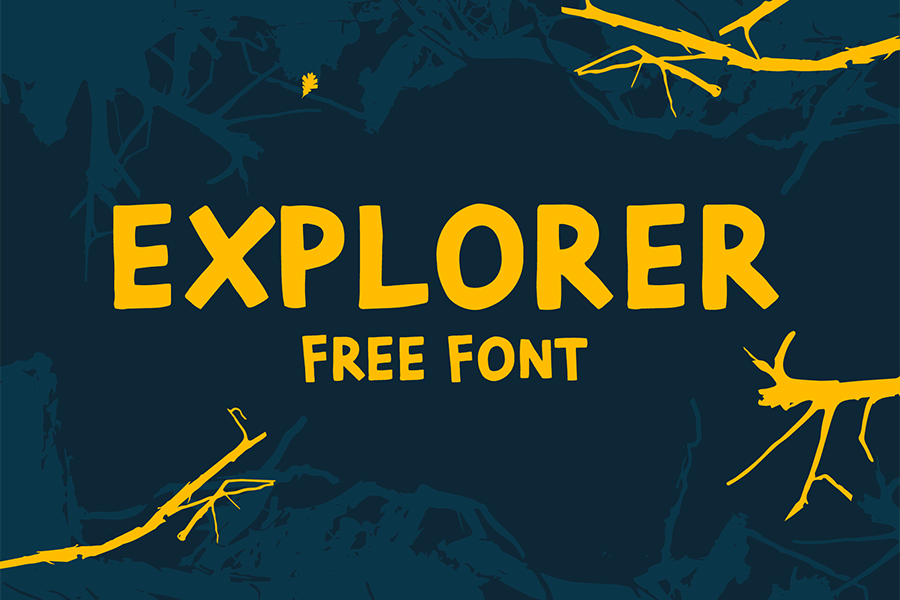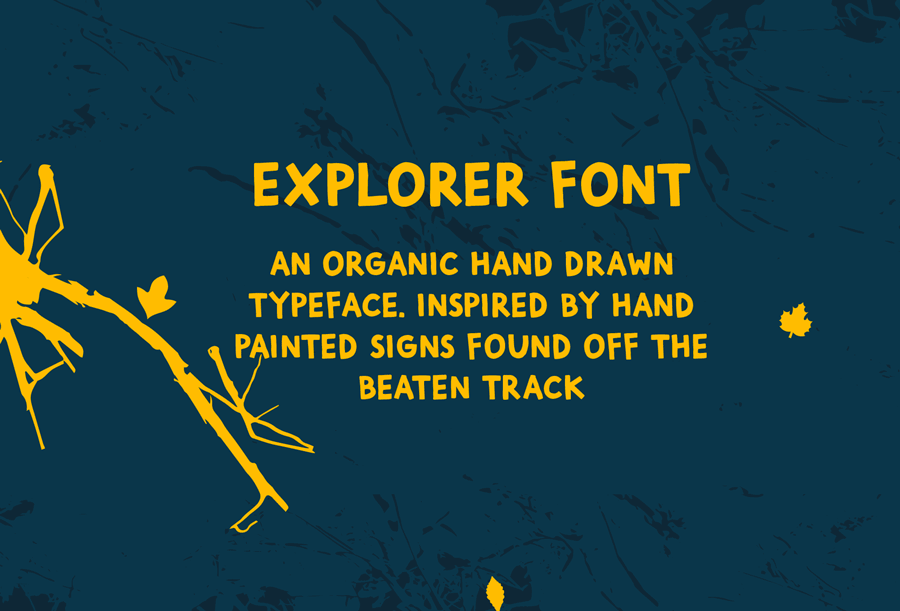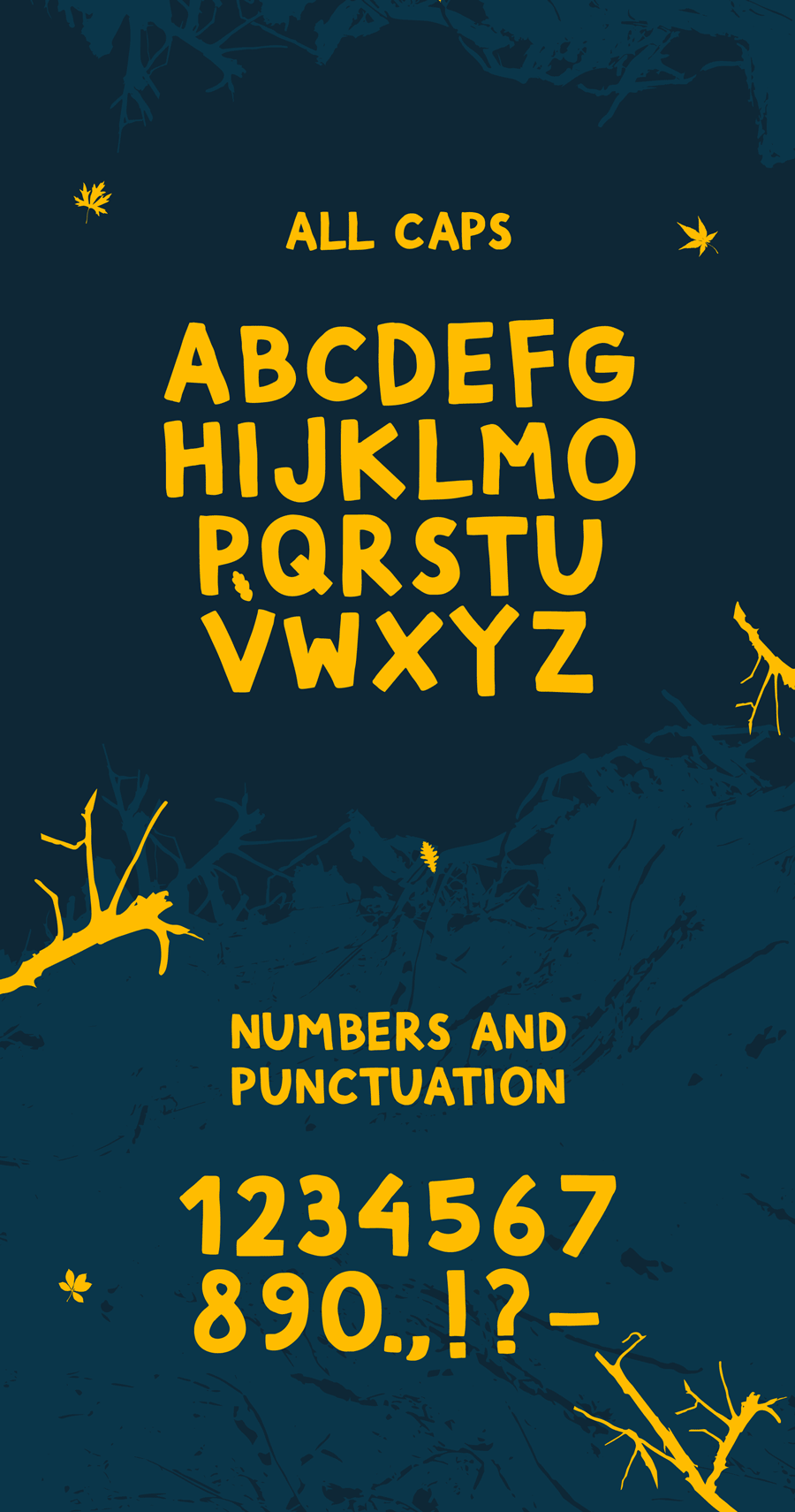
Today, let’s go outside and explore the world! Explorer is a free font that encapsulates the spirit of going out, with its design inspired by hand painted signs found off beaten track.
The stroke thickness remained consistent across all characters due to using the same brush. It has uppercases only and with basic latin characters.